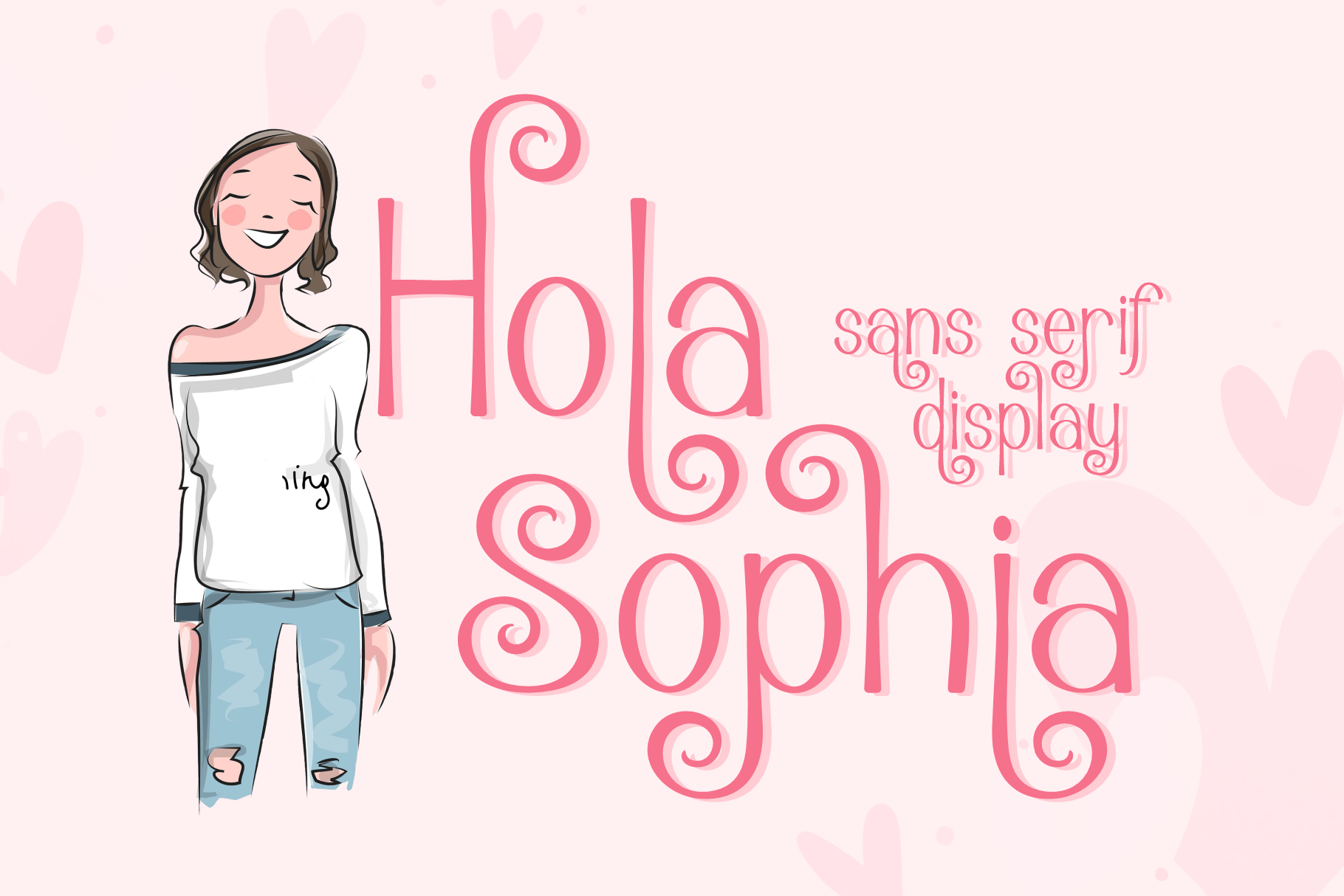
Hola Sophia | Cheerful Font
HOLA SOPHIA is a cute upper and lowercase font with alternates. It's fun and cute and perfect for your craft and design projects